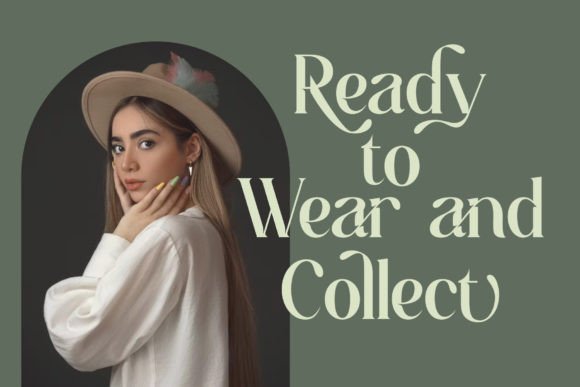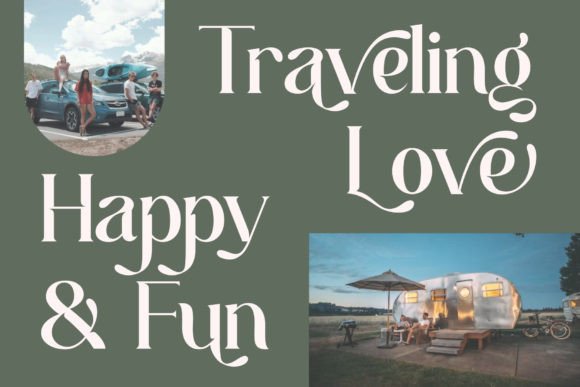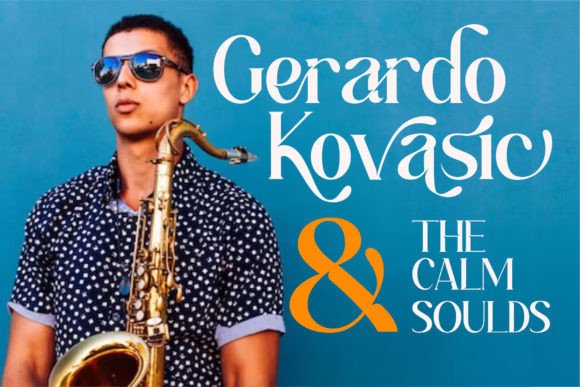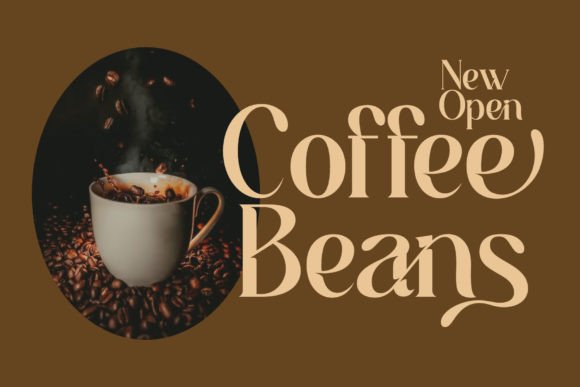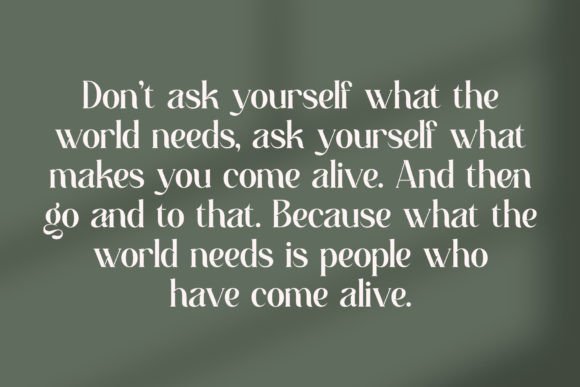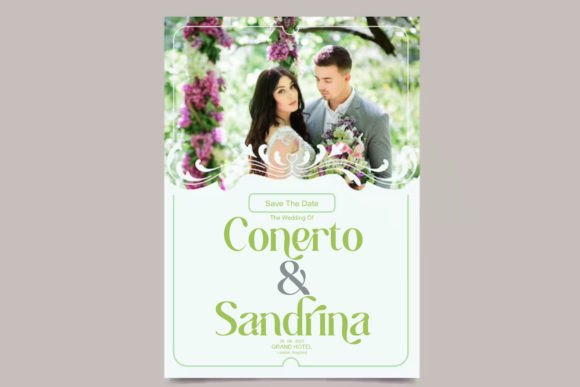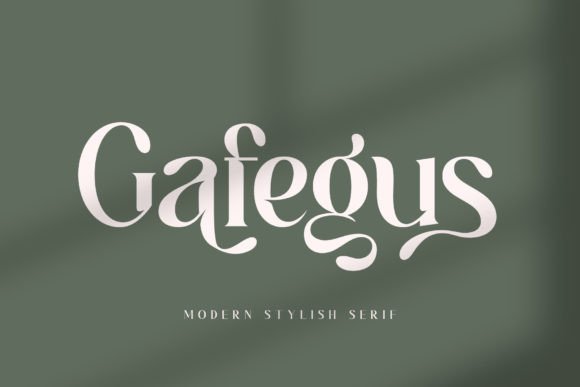
Gafegus Font: Elevate Your Designs with Elegance and Sophistication
In the world of typography, a font can make or break a design. For designers and crafters looking to add a touch of class and sophistication to their projects, Gafegus Font is an excellent choice. This modern, elegant, and classy serif typeface is perfect for displaying titles, logos, branding, magazines, product packaging, and invitations.
The Characteristics of Gafegus Font
Gafegus Font boasts clean lines and subtle curves that give any project an extra touch of class. Its serif design adds a level of sophistication and elegance, making it ideal for high-end branding and luxury product packaging. The font’s modern aesthetic ensures that it stays relevant and fresh, even in today’s fast-paced design landscape.
Why Choose Gafegus Font?
So, why should designers and crafters choose Gafegus Font for their projects? Here are just a few compelling reasons:
- Elegance and Sophistication: Gafegus Font exudes elegance and sophistication, making it perfect for high-end branding, luxury product packaging, and exclusive events.
- Versatility: This font is incredibly versatile and can be used for a wide range of design projects, from titles and logos to magazines and invitations.
- Clean Lines and Subtle Curves: The font’s clean lines and subtle curves create a beautiful, refined aesthetic that adds a touch of class to any project.
- Modern Aesthetic: Gafegus Font has a distinctly modern feel, ensuring that your designs stay fresh and relevant.
How to Use Gafegus Font in Your Designs
Using Gafegus Font in your designs is easy. Here are a few tips to get you started:
- Pair it with Other Fonts: Gafegus Font pairs beautifully with other fonts, creating a stunning visual hierarchy in your designs.
- Experiment with Font Sizes: Don’t be afraid to experiment with different font sizes to create visual interest and add emphasis to your design.
- Use it for Headings and Titles: Gafegus Font is perfect for headings and titles, adding a touch of elegance and sophistication to your design.
- Add a Pop of Color: Use Gafegus Font in a bold, contrasting color to create a stunning visual effect.
The Benefits of Using Gafegus Font for Designers and Crafters
For designers and crafters, using Gafegus Font offers a range of benefits, including:
- Time-Saving: With Gafegus Font, you can create stunning designs in no time, saving you hours of work and effort.
- Professional-Looking Designs: This font helps you create professional-looking designs that are sure to impress your clients and audience.
- Easy to Read: Gafegus Font is easy to read, even at small sizes, making it perfect for body text and captions.
- Highly Versatile: This font is incredibly versatile, making it suitable for a wide range of design projects and applications.
In conclusion, Gafegus Font is an excellent choice for designers and crafters looking to add a touch of elegance and sophistication to their projects. With its clean lines, subtle curves, and modern aesthetic, this font is perfect for displaying titles, logos, branding, magazines, product packaging, and invitations. Whether you’re a seasoned designer or just starting out, Gafegus Font is a great addition to your font library.